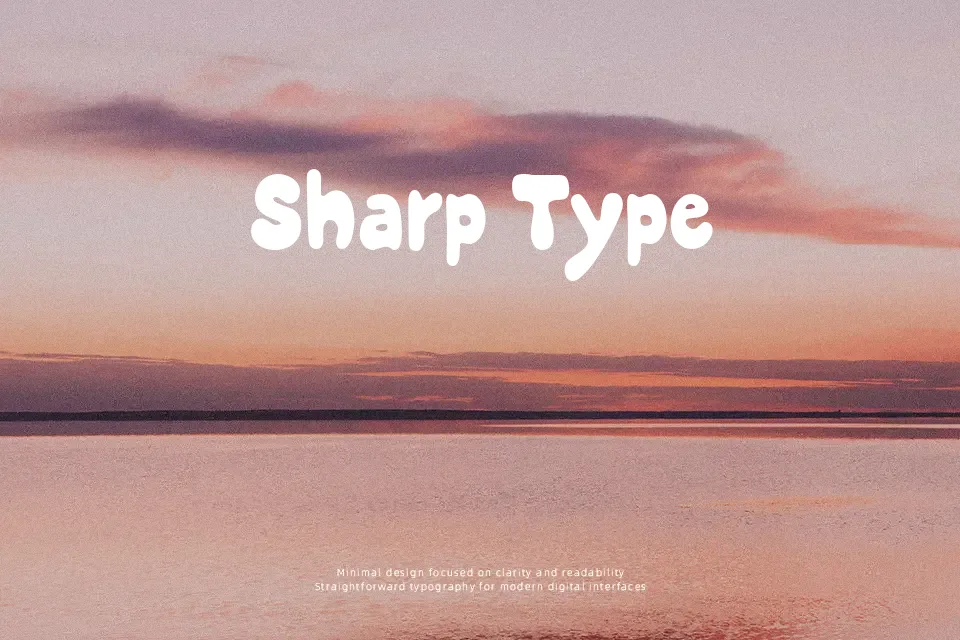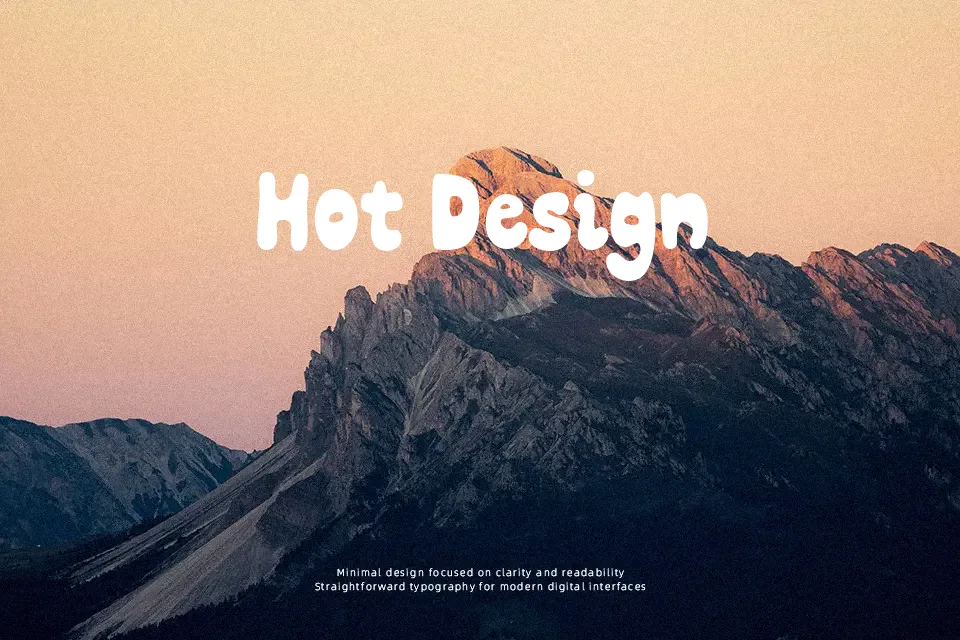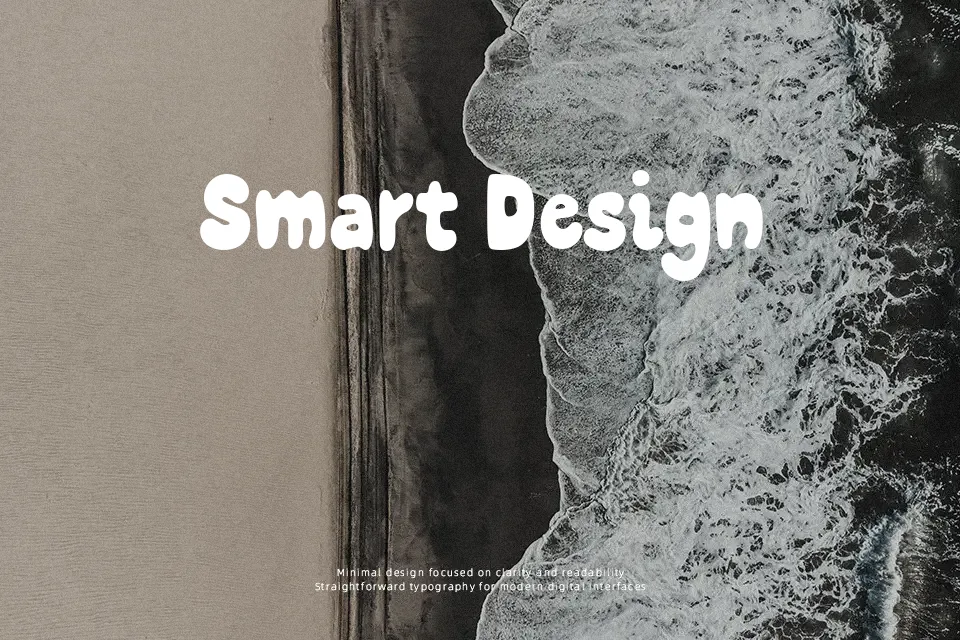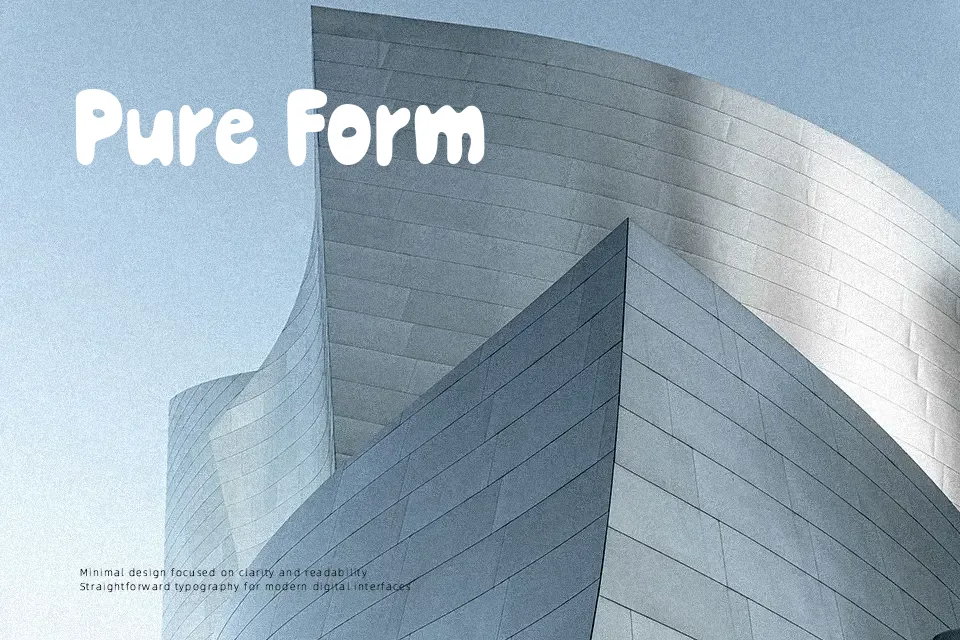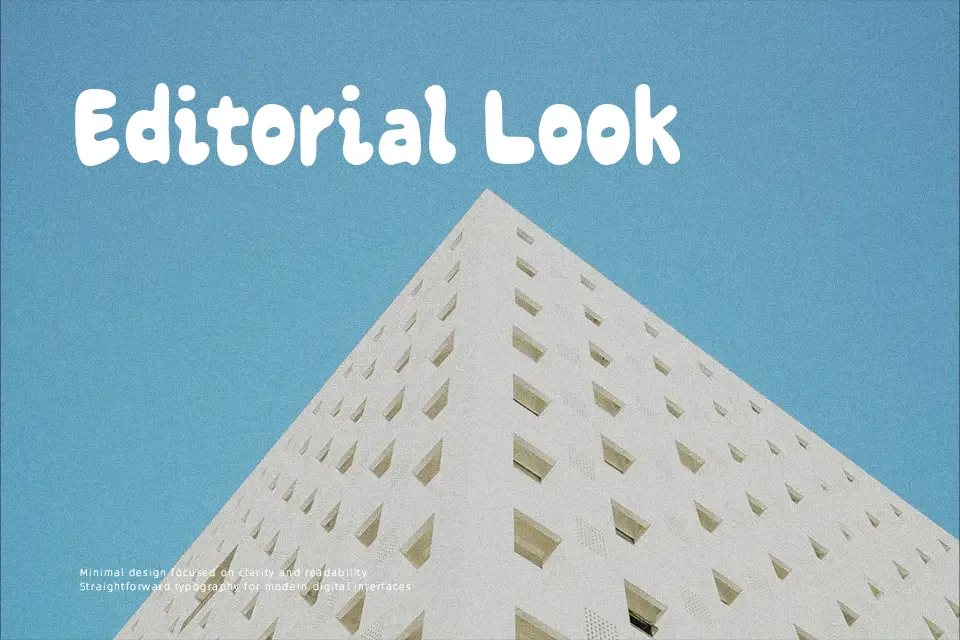
Cashecream Font
Designed by Keiu Grossberg
Cashecream Font features bulbous, low-contrast letterforms with smooth curvatures and heavy stroke weights reminiscent of classic psychedelic display lettering. Tight character spacing combined with compact counter spaces provides a dense, lively typographic texture across medium and large settings. The consistent organic proportions ensure strong display presence on festival banners, playful merchandise, and whimsical restaurant signage. However, the exaggerated stroke thickness and tight negative spaces reduce character distinction when rendered in dense body text or small captions. The letterforms perform most effectively when given ample breathing room in short display headlines.
– retro apparel graphics
– music festival posters
– kids product packaging
– playful restaurant signage
– continuous body paragraphs
– corporate annual reports
– compact mobile UI labels
– legal documentation
Perfect for headline, kids, and logo, with a bold and decorative style.